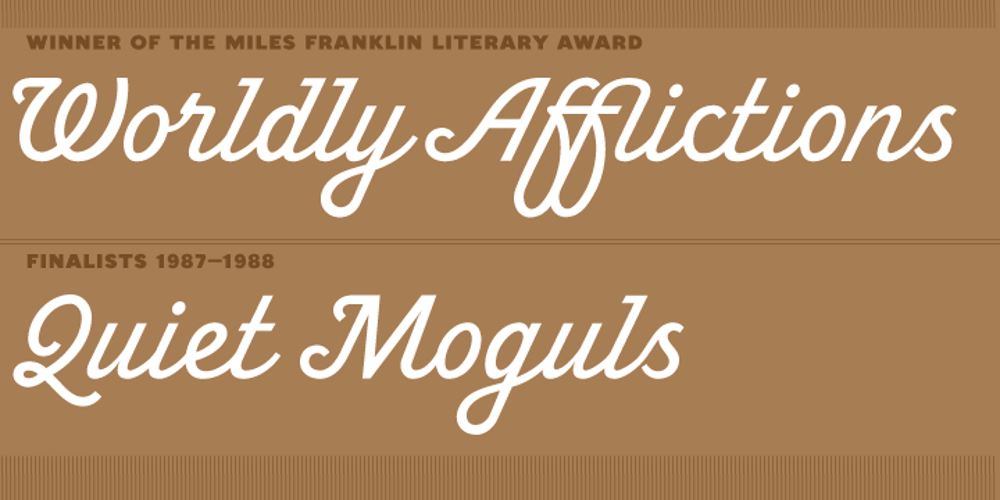
Terital United Font Family was designed by Lan Huang, Wendy Ellerton and published by Letterbox. Terital United contains 1 styles and family package options. The long and frustrating search for a dynamic, monoline script drew our attention to the lack of such a typeface. This prompted us to create our very own, Terital, named after the 1960s Italian overcoat advertisement that was the original reference point for its 2003 creation. Fearing the odd all-caps script setting, we cheekily designed Terital as a lowercase set. This limitation was revised in the 2011 version. Beautiful swash capitals were also added.